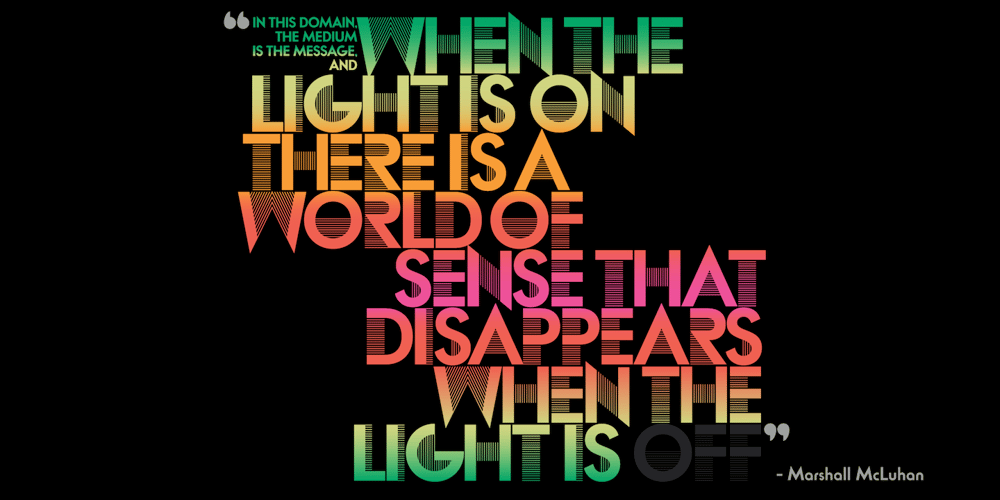
Lincoln Electric Font Family was designed by Thomas Lincoln, Patrick Griffin and published by Canada Type. Lincoln Electric contains 3 styles and family package options. Lincoln Electric started its life as an in-house experimental film type Thomas Lincoln drew shortly after concluding his work as part of Herb Lubalin’s famed crew in the late 1960s,. The master alphabet was drawn on illustration boards using pen and ink and press-type lines. The typeface was initially made for use in the branding and promotional material of Lincoln’s new design outfit. This alphabet’s forms are a spin on Bifur, the all-cap deco face designed by Adolphe Mouron (known as Cassandre) in 1929, and published by the Deberny & Peignot foundry in France. Lincoln Electric evolves Cassandre’s idea further by constructing new shapes more in line with minimalist principles rather than art deco geometry — something clearly evident in Lincoln’s minuscules, which exhibit a clear connection to Bauhaus ideasMore than 50 years after the typeface’s design, Thomas Lincoln found the original film alphabet tucked away in his archives and brought it over to Canada Type for digital retooling. The result is a modern and thoroughly elaborate set of fonts that belonging prominently in a 21st century designer’s toolbox. The following features are included in Lincoln Electric:• Three fonts for chromatic layering.• More than 1900 glyphs in each font.• Expanded Latin and Cyrillic character sets.• Small caps and Caps-to-small-caps.• Six different sets of stylistic alternates.• Ordinals and case-sensitive forms.For a showing of the stylistic set variations and a sample of demonstration of chromatic layering, please consult this PDF.